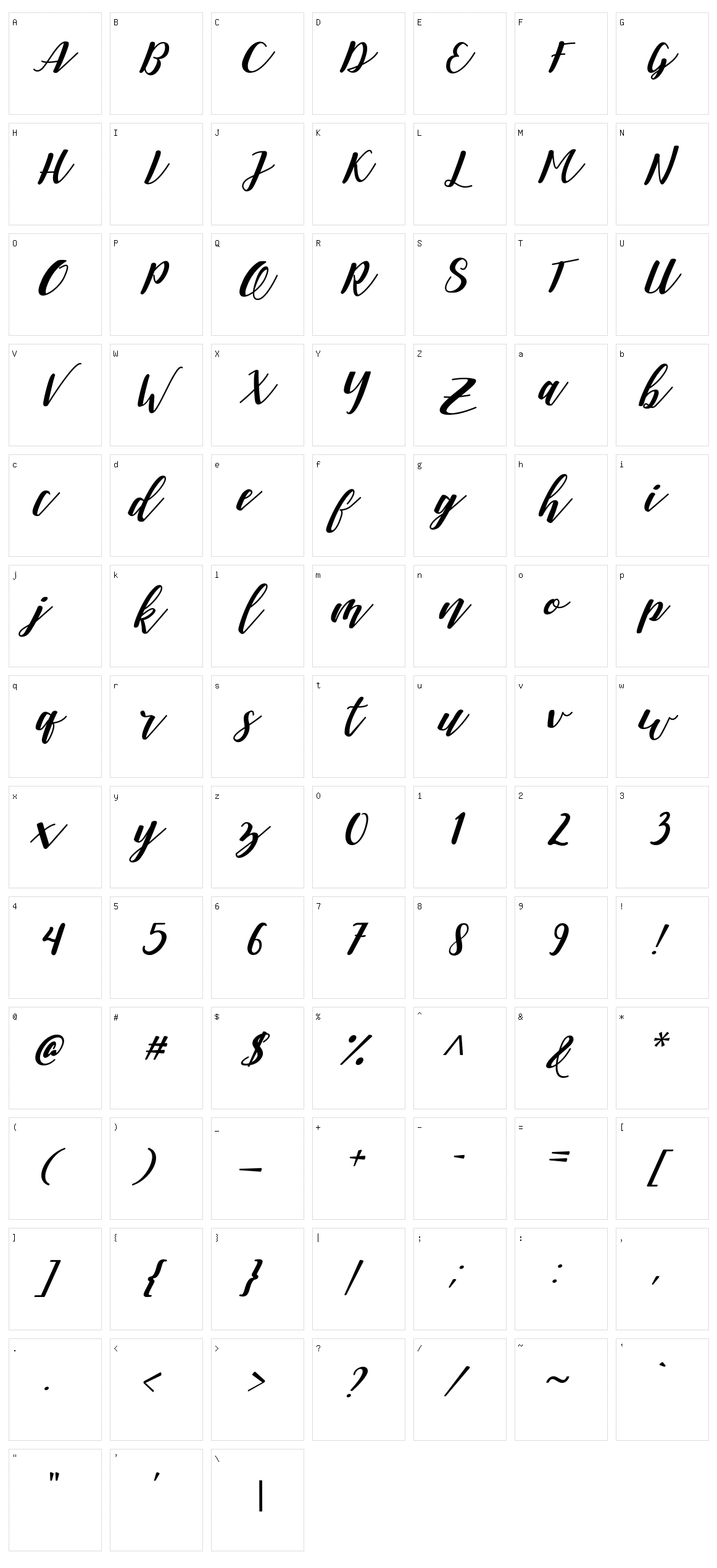
The free font Daniesha is carefully designed by Masanis Studio, showcasing a thoughtful balance of creativity and usability and falls under the Script font style. When you download the ZIP file, it contains only 898.85 KB of font files, making it lightweight and quick to download. Please review the license details below to understand permitted usage and distribution rights. If license information is not available, we recommend using this font for personal projects only or contacting the author directly for commercial usage permissions.
Daniesha - Romantic Script
Mas Anis Studio's Font